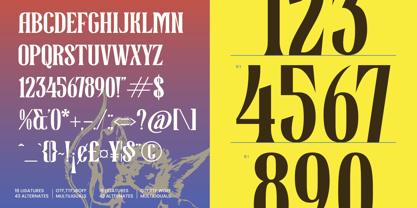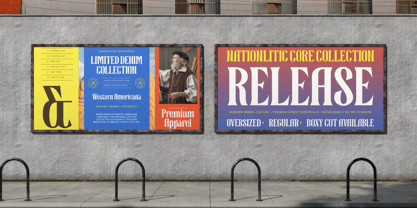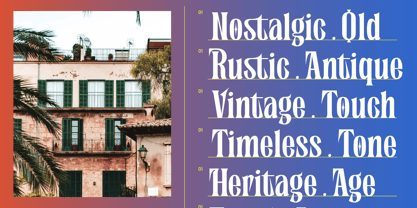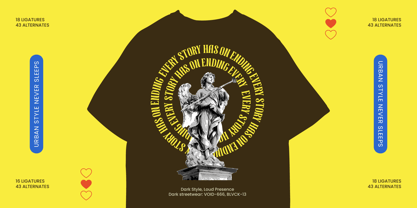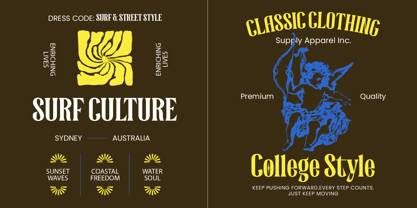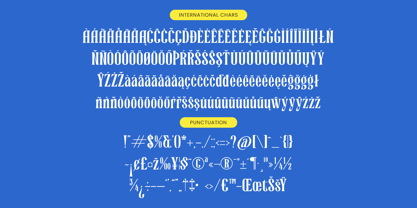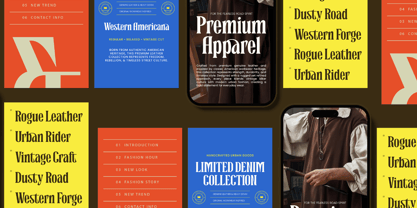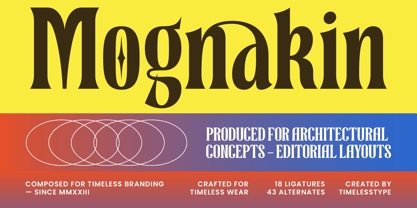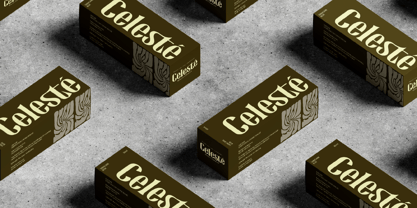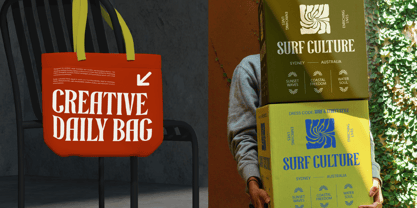
Mognakin
by Timelesstype Studio
The Mognakin Font Family was designed by Heru Utama Putra and published by Timelesstype Studio. Mognakin contains 2 styles and family package options.
Mognakin – Serif Display Font, a typeface engineered for maximum visual impact. This high-contrast editorial serif blends classical elegance with contemporary flair, making it an essential tool for designers seeking to make a bold statement. Its sharp serifs and fluid, sweeping curves provide a unique aesthetic rhythm that commands attention while maintaining a high level of typographic luxury and professional polish.
Master international communication with a typeface that bridges cultural boundaries through its expansive character set. With its extensive multilingual support, Mognakin – Serif Display Font adapts seamlessly across global markets, making it incredibly versatile for international projects. This global adaptability ensures that your brand’s voice remains consistent and prestigious, whether it is featured in high-end European boutiques or used for global digital campaigns.